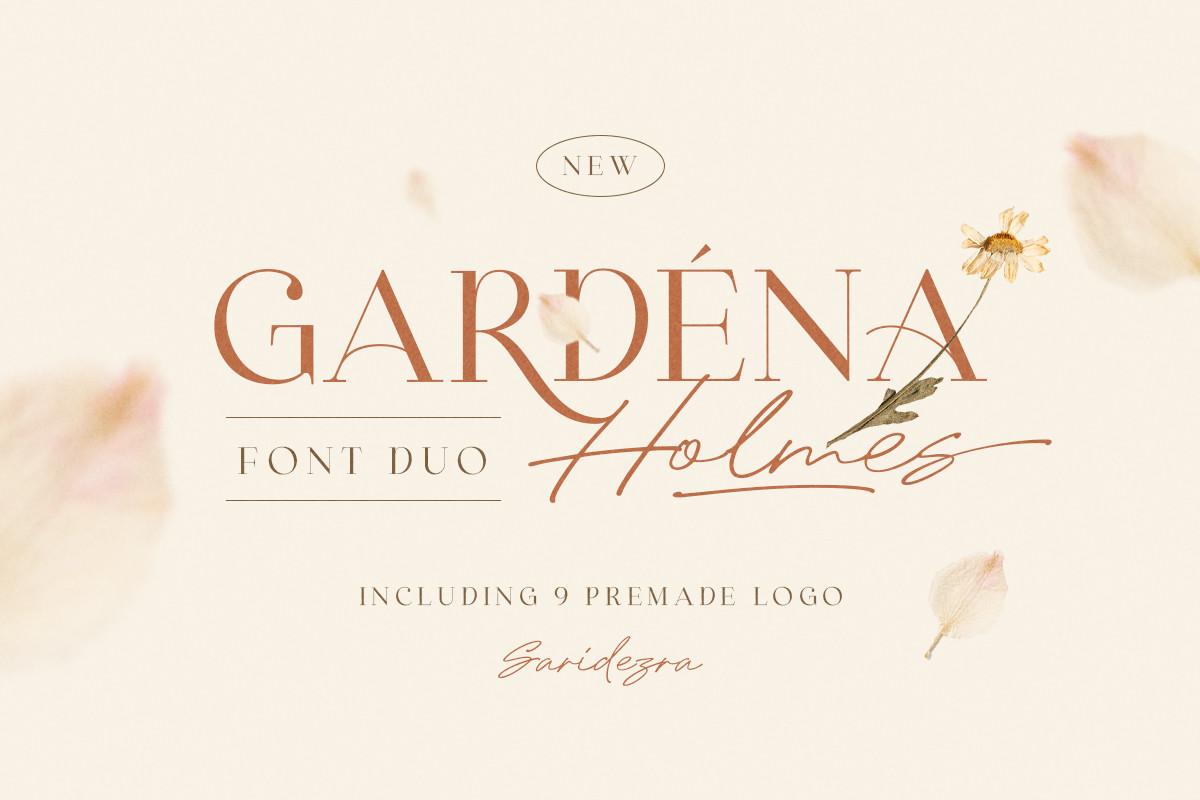
Gardena Holmes Font Description
Gardena Holmes is a lovely and versatile duo font (serif and script). Together or apart, these fonts are ideal for adding a chic and cheery touch to your crafts. Gardena Holmes is PUA encoded which means you can access all glyphs and swashes with ease!